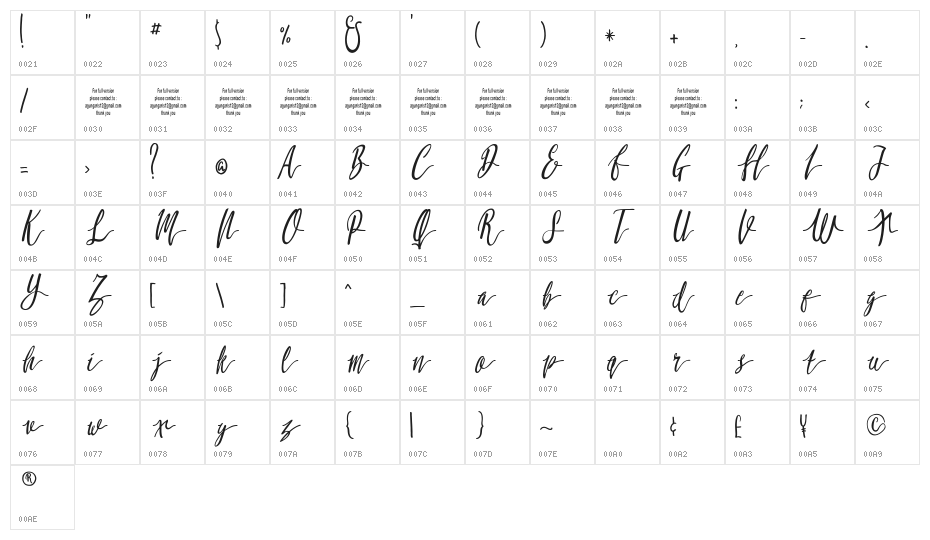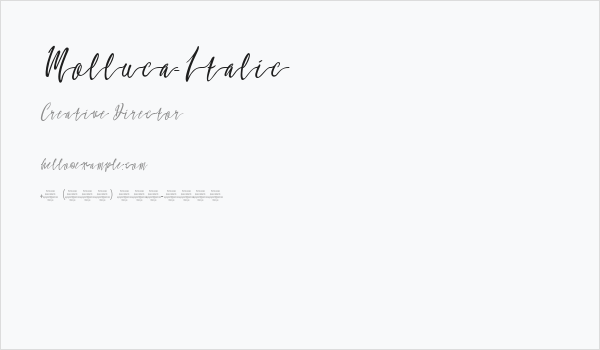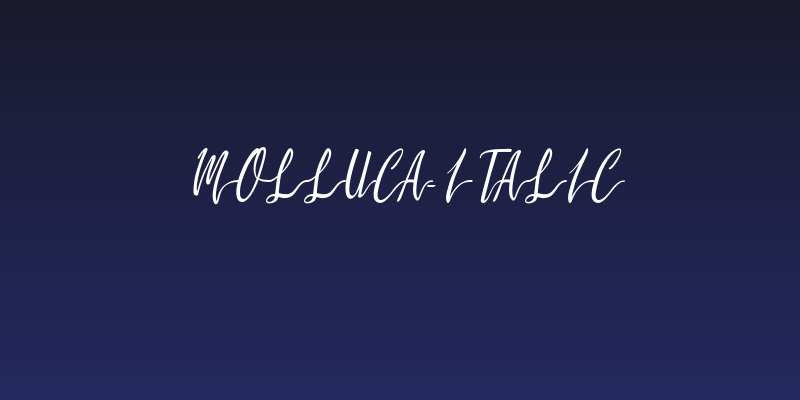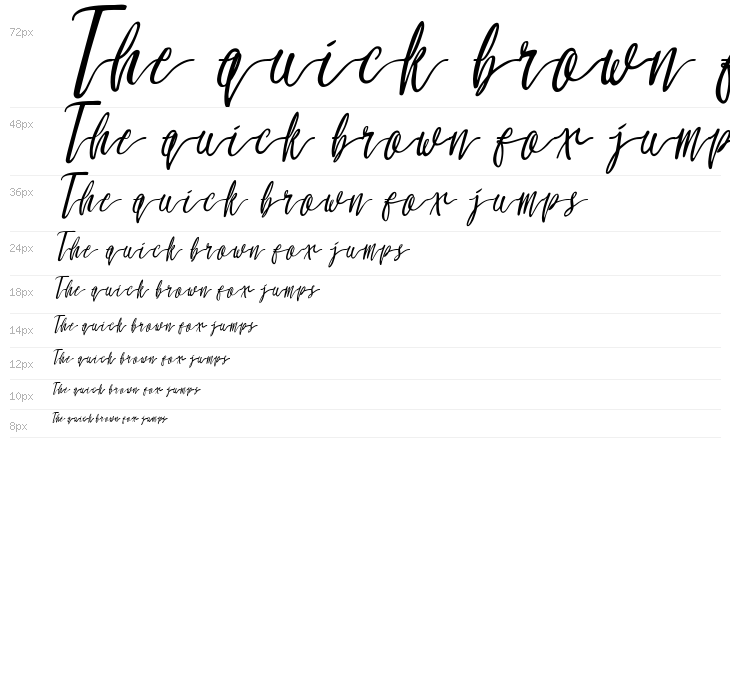
Molluca-Italic Font
Molluca-Italic Description
This elegant script font features a flowing, cursive style with smooth, connected strokes that mimic the fluidity of handwriting. The uppercase letters are bold and expressive, with sweeping flourishes that add a touch of sophistication. The lowercase letters maintain a consistent rhythm, enhancing readability while preserving the artistic flair. The numerals and special characters are crafted with the same attention to detail, ensuring a cohesive look across all elements. This font's graceful curves and stylish design make it ideal for projects that require a personal, elegant touch.
Overall StyleElegant
Use CaseLogos, Invitations, Greeting Cards
Proposed ProjectsIdeal for wedding invitations, greeting cards, branding, and elegant logos.